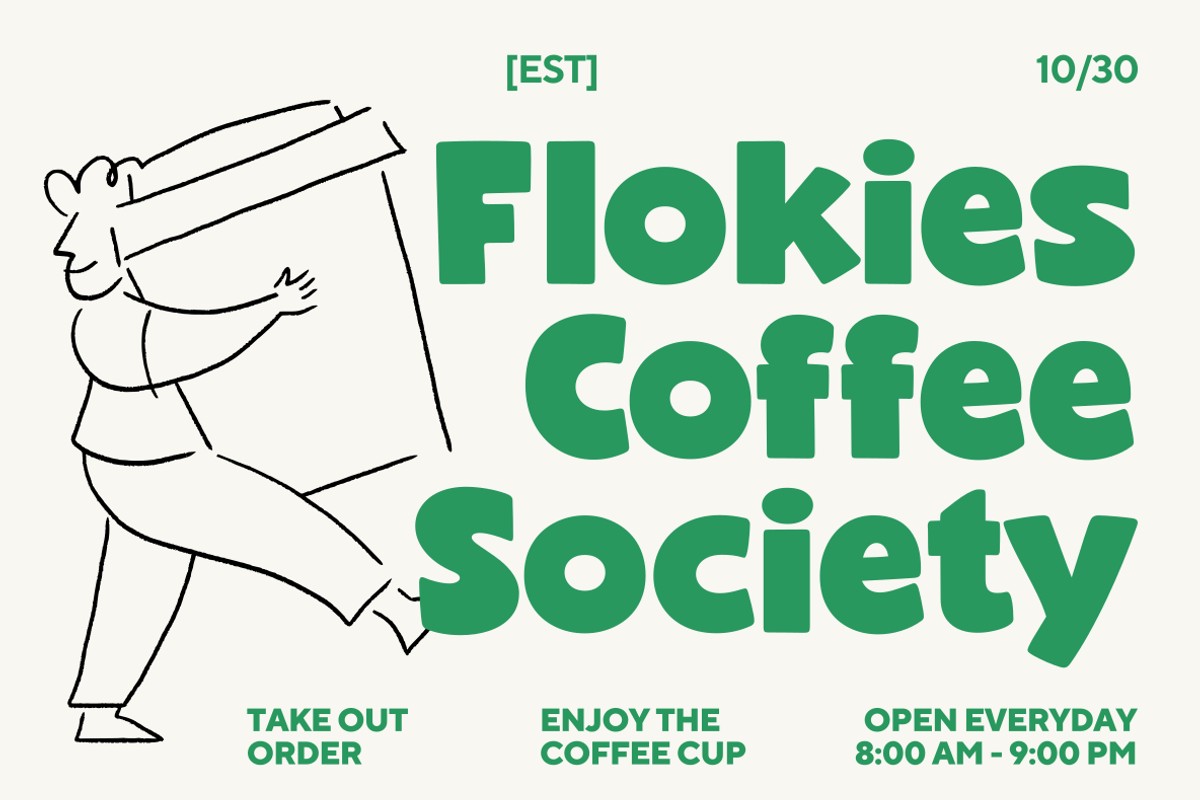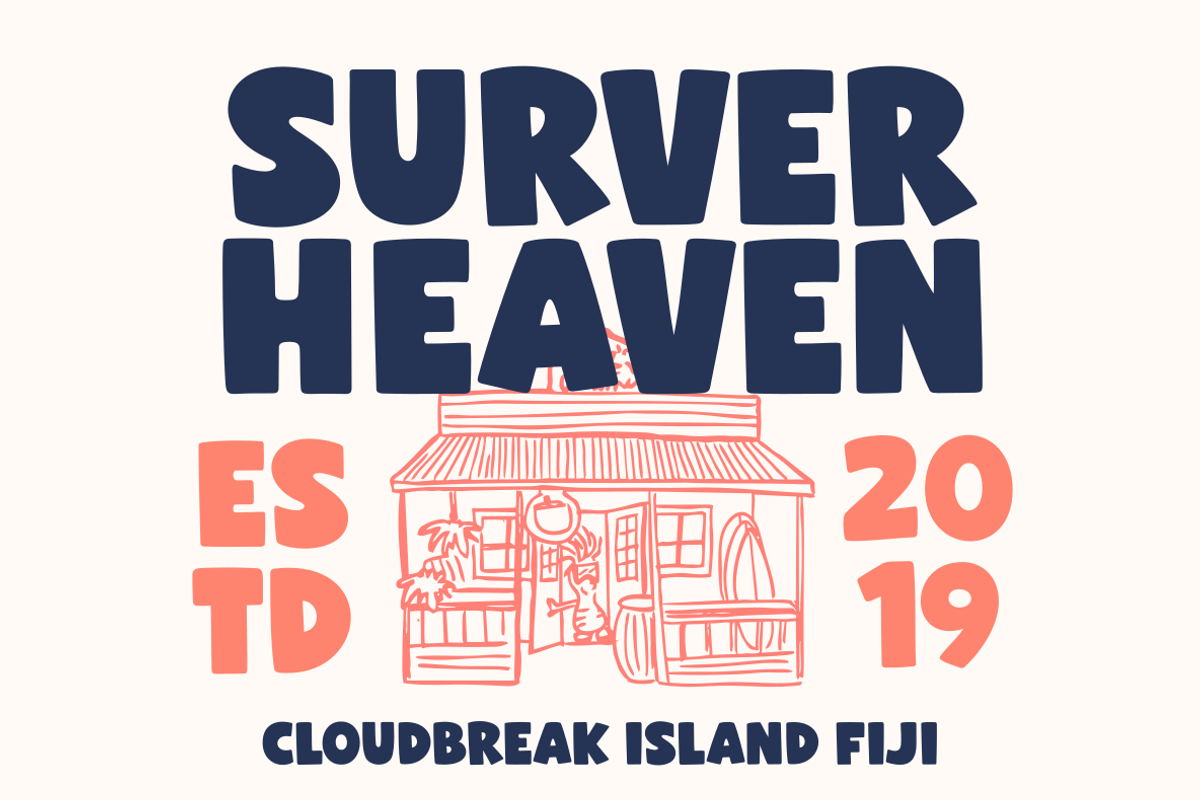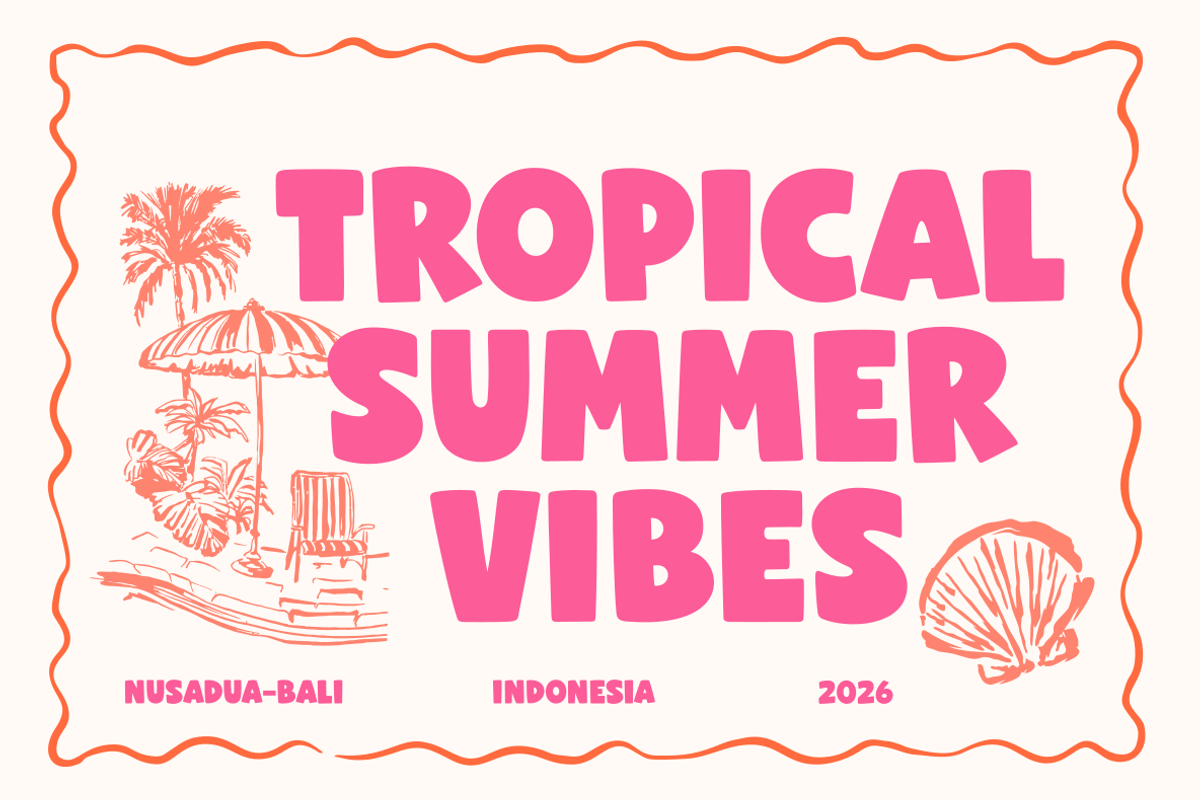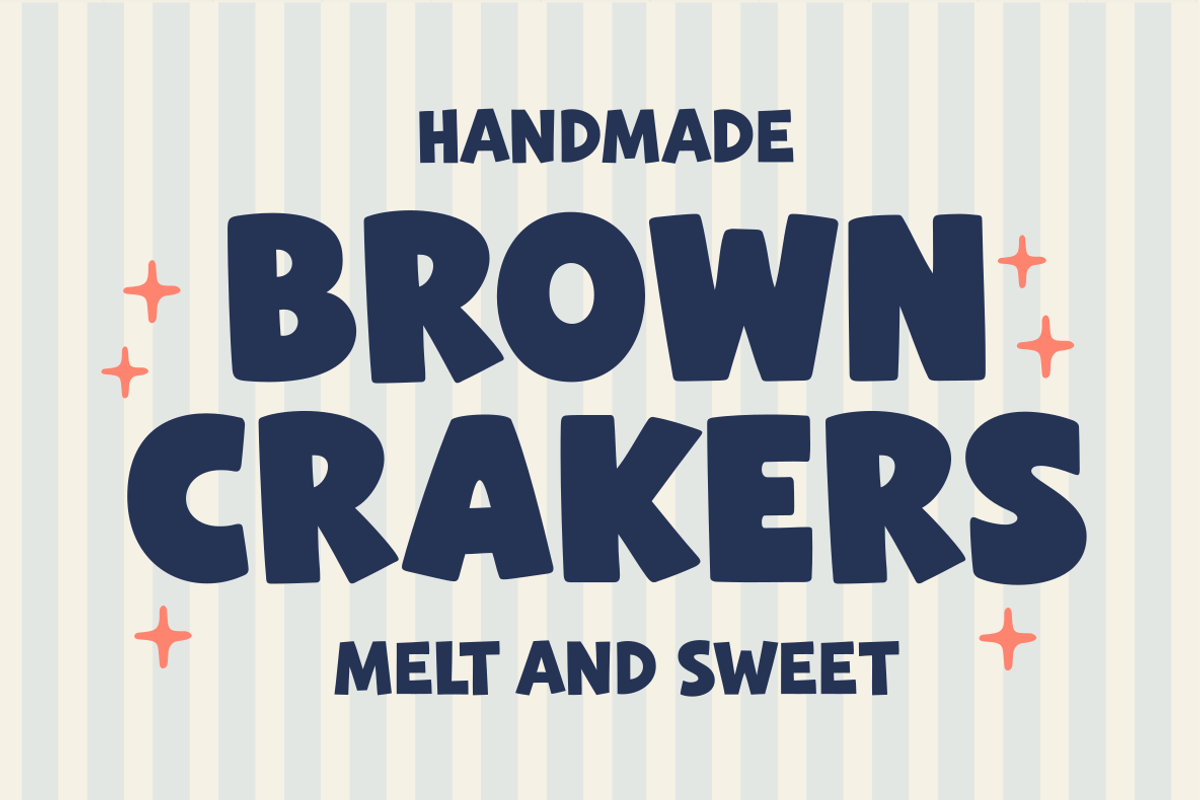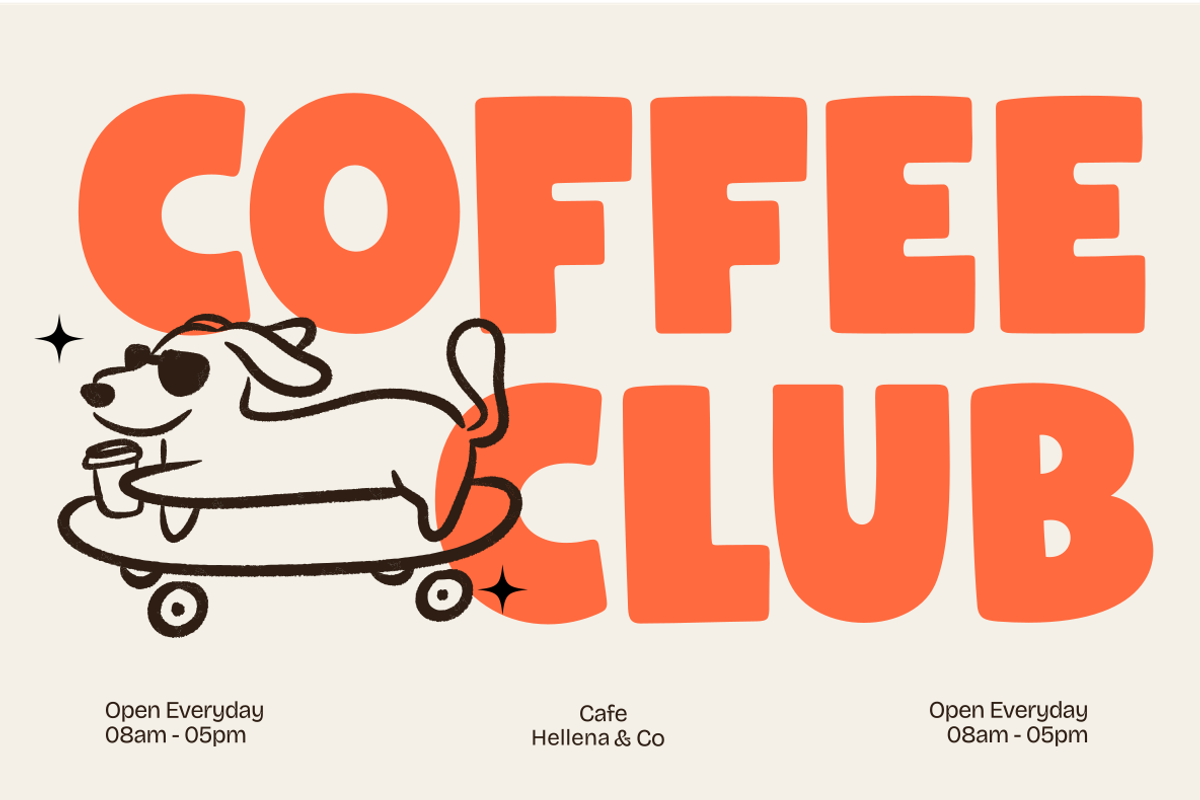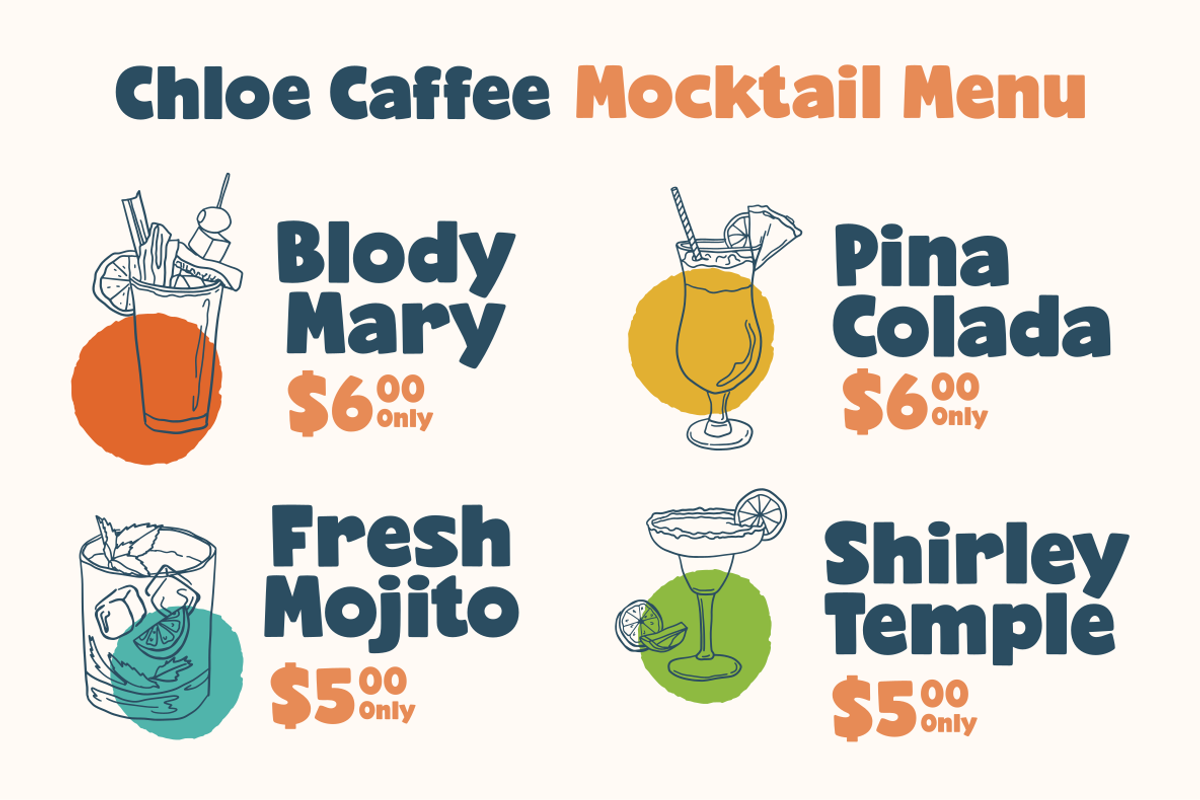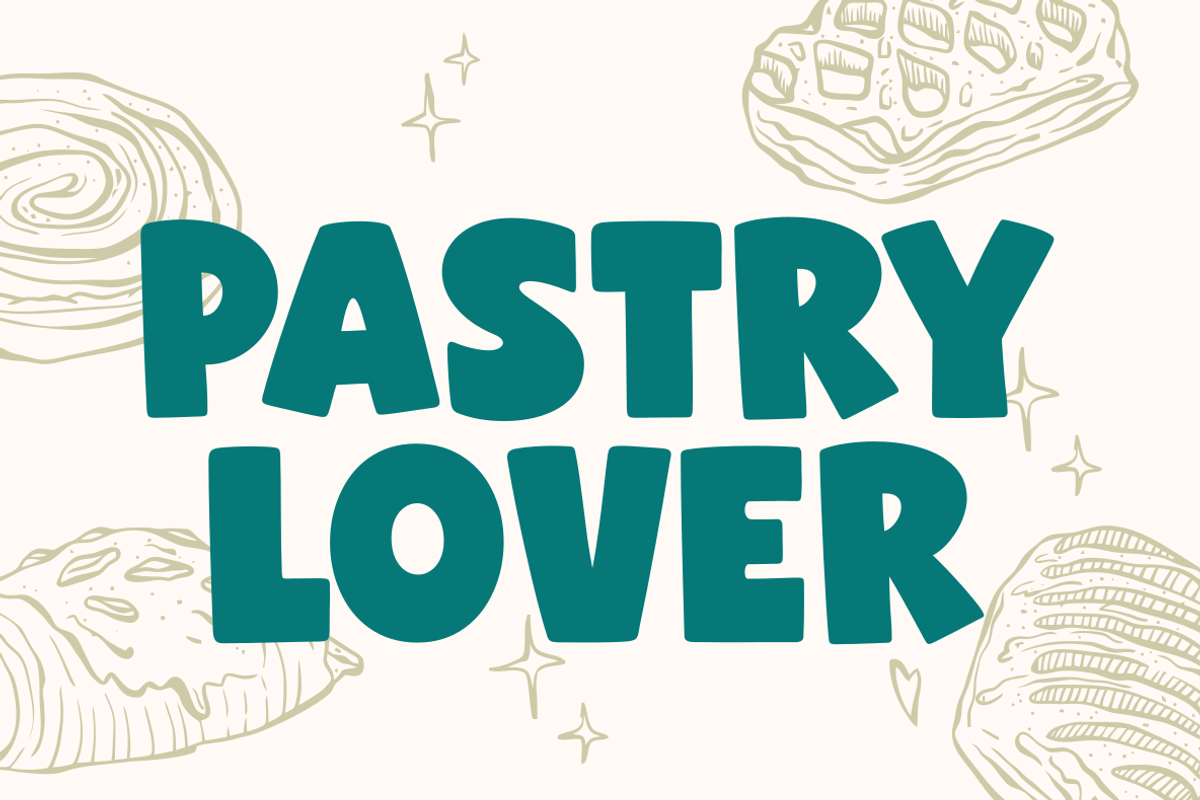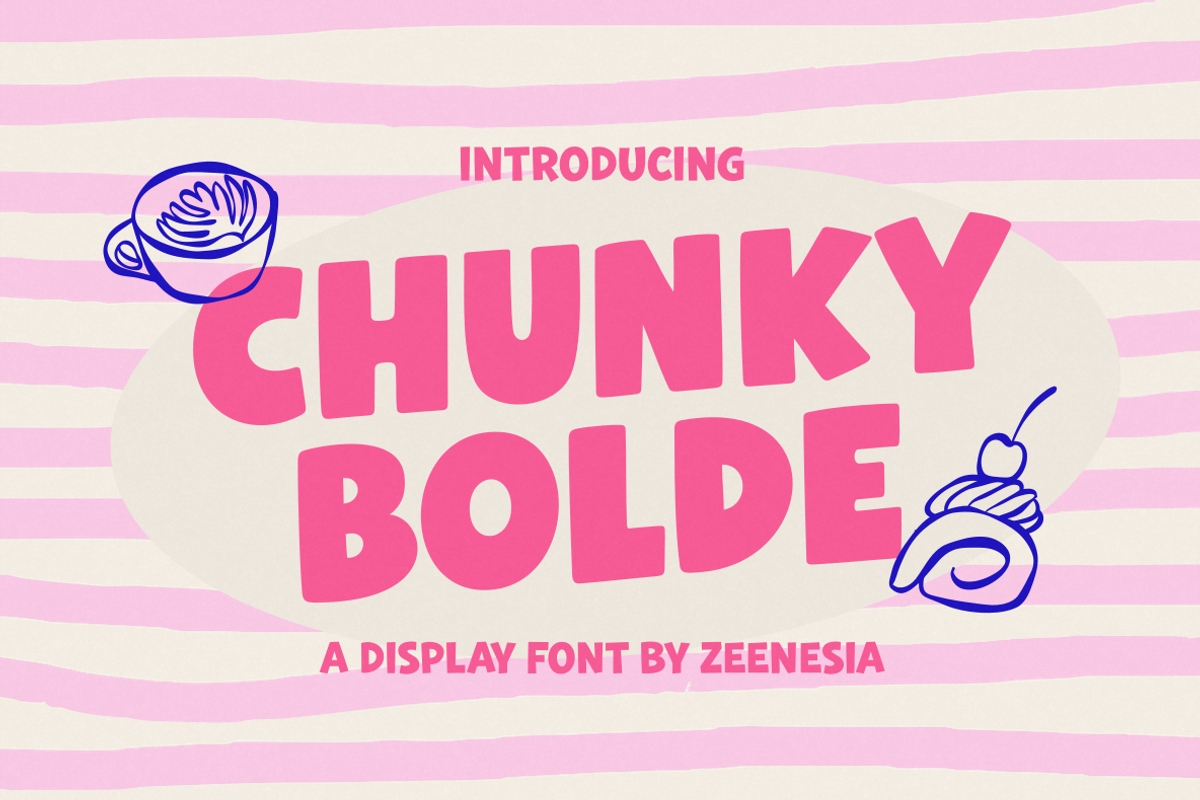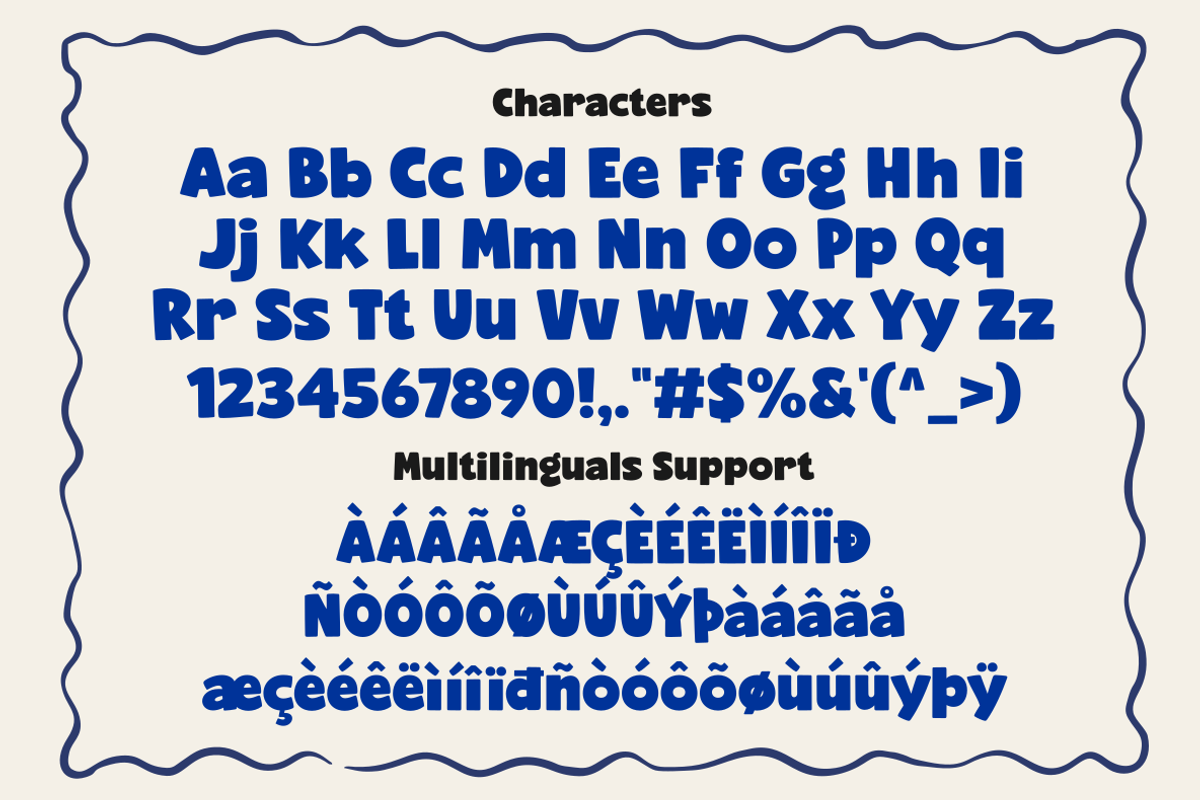
Chunky Bolde
Chunky Bolde is a bold and chunky display font packed with sweetness and confidence. Its thick curves and solid letterforms create a strong visual impact while keeping a soft, friendly feel.
Designed to stand out, this typeface is perfect for eye-catching headlines, branding, packaging, posters, and playful merchandise. Chunky Bolde brings a fun retro-modern touch that instantly grabs attention.